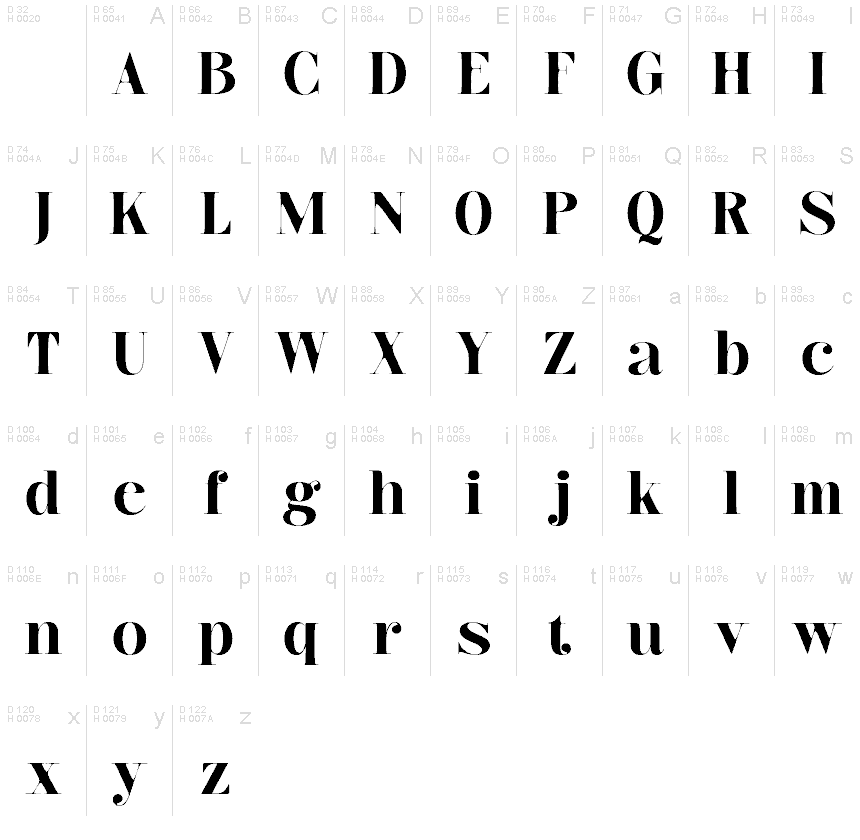
CSNolanDrawn-Regular Demo
CS Nolan Drawn font by Craft Supply Co. is a modern display free font with elegant, sophisticated, and strong presence features. It is a high-contrast bold serif with sharp details that empowers your designs with visible high-end aesthetics. The typeface stands out on its own or when combined with other styles.
Use CS Nolan for designing logotypes, signage, book covers and titles, packaging labels, posters, magazines and newspapers, website headers etc. Use it in branding projects where you want to communicate success and prestige through visual perception.